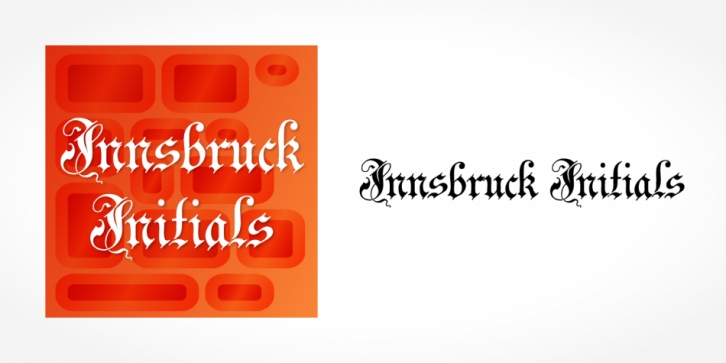
Innsbruck Initials is a blackletter font published by SoftMaker.
Blackletter is the classic “German” printing type. Starting in the 16th century and lasting well into the 20th century, most works in Germany were printed using blackletter types.
Today, blackletter fonts are mainly used decoratively. If you want to communicate a feeling of old-world quality or nostalgia, blackletter fonts are the preferred choice - use them on signs, in brochures or on invitation cards.
“Innsbruck Initials” is a classic blackletter font of its epoch which inspires you to create vintage-looking designs with ease.